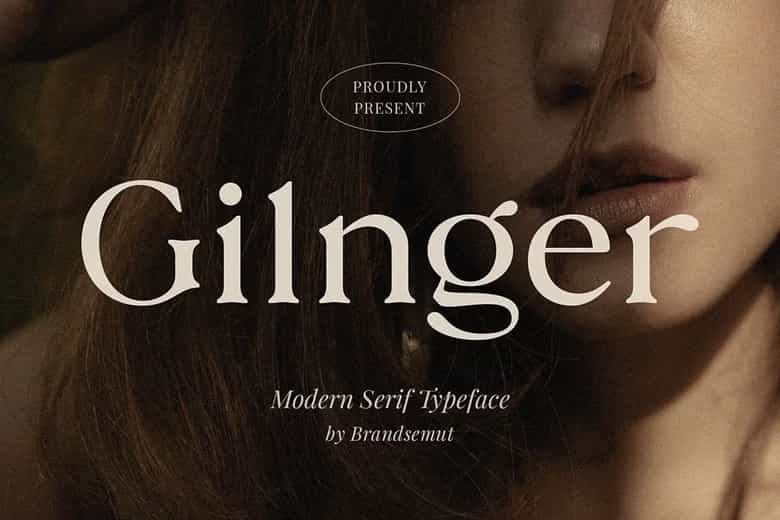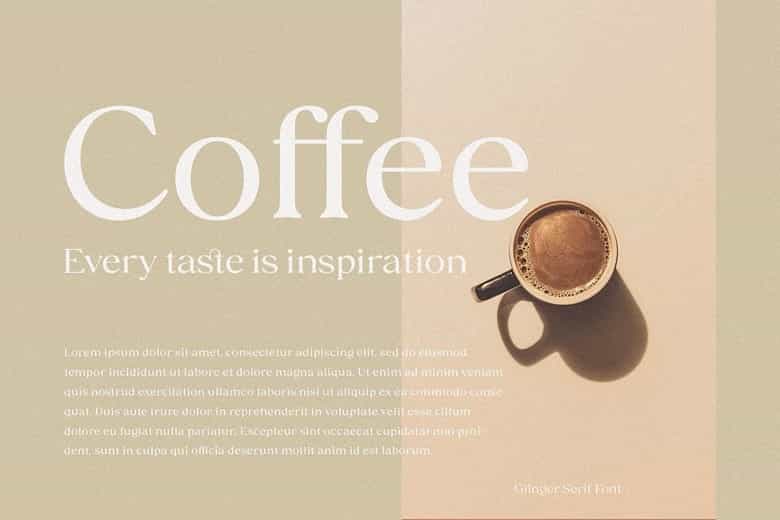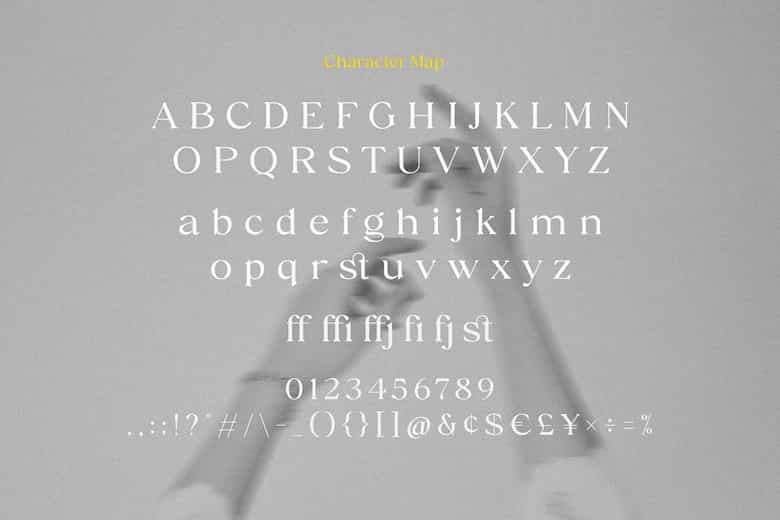
Gilnger is a modern and elegant serif typeface. There is no doubt that you will certainly fall in love with its outstanding style, grab it, use it to design cute wedding invites, beautiful stationery art, colorful social media posts, and what have you!